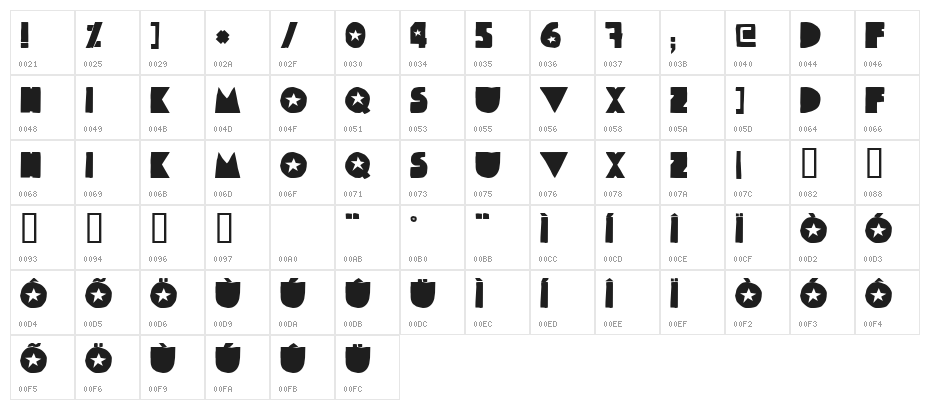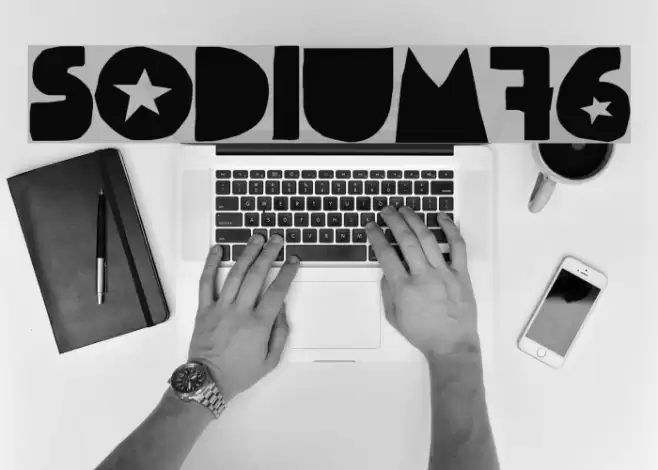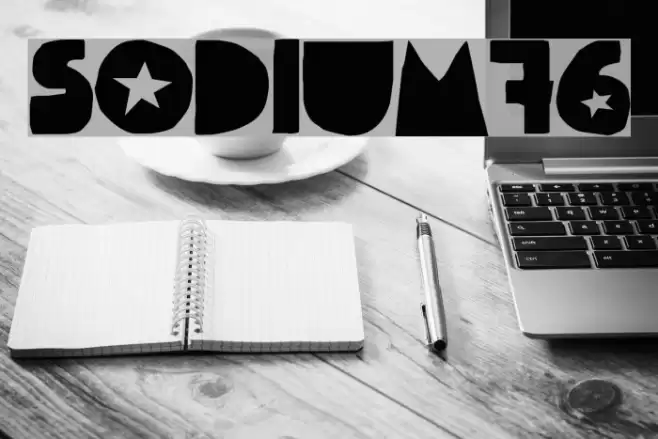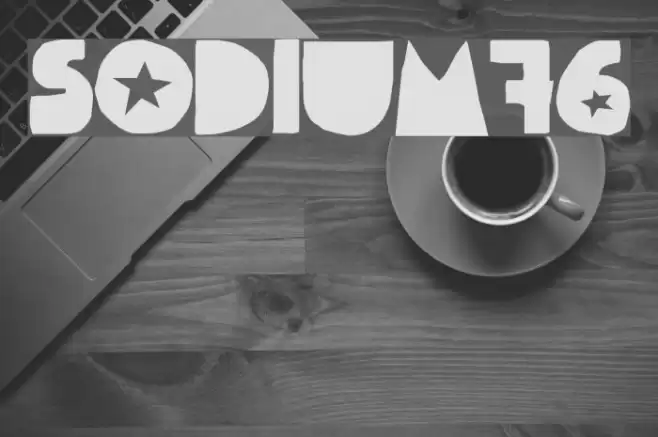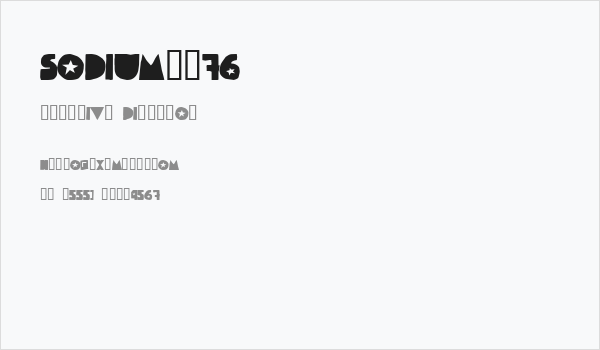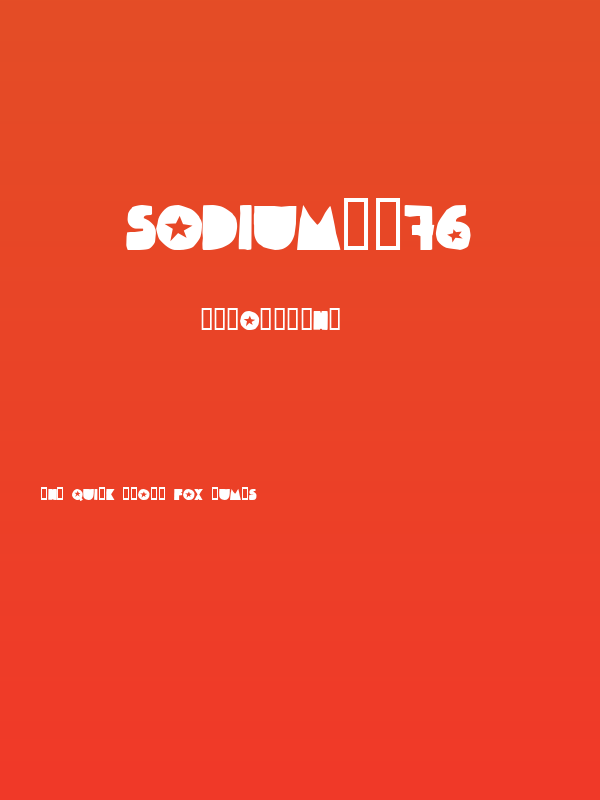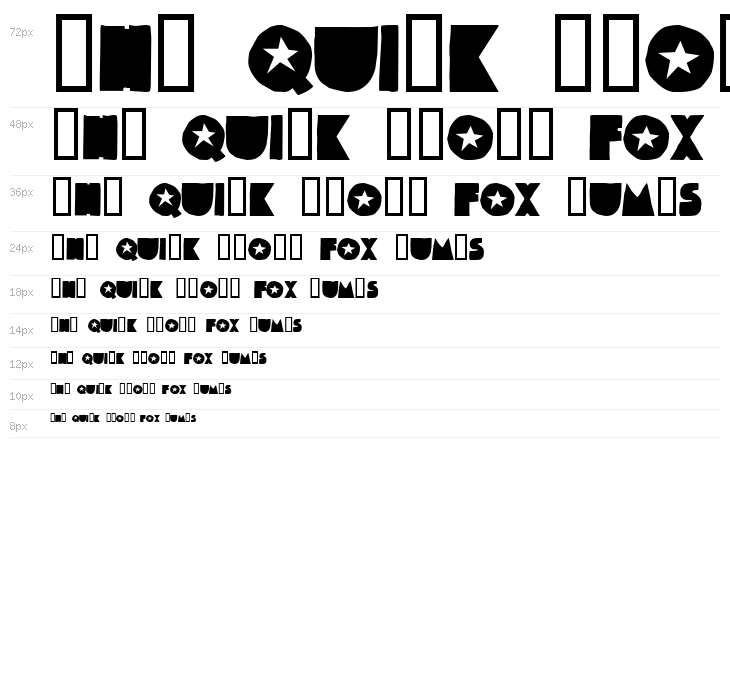
Sodium'76 Font
Sodium'76 Description
This font features a bold and geometric design with a strong emphasis on angular shapes and solid forms. Each character is crafted with a unique blocky style, incorporating sharp edges and a distinct, almost stencil-like appearance. The uppercase letters are particularly striking, with some characters featuring star motifs within their forms, adding a decorative touch. The numbers and special characters maintain the same bold and structured aesthetic, ensuring consistency across the entire typeface. This font's design is both eye-catching and impactful, making it suitable for projects that require a strong visual presence.
| Proposed Projects | Ideal for posters, logos, branding materials, and any design requiring a bold, standout typeface. |